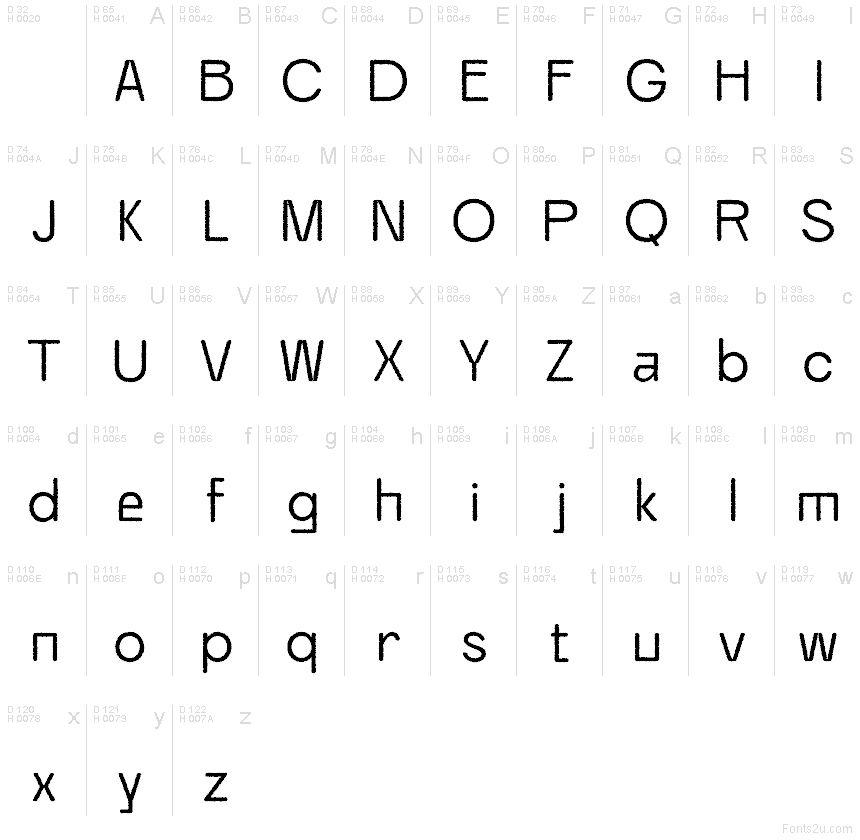
RanbergRoundedRough-Regular Demo
Ranberg Rounded Rough font by Craft Supply Co. is a casual eroded display typeface with distressed texture and rounded letters. It looks modern, simple, and appealing to the eye when placed over pictures or colored backgrounds. With amazing versatility, this font can be easily integrated into a plethora of design projects for charming outcomes.
Ranberg Rounded Rough Demo